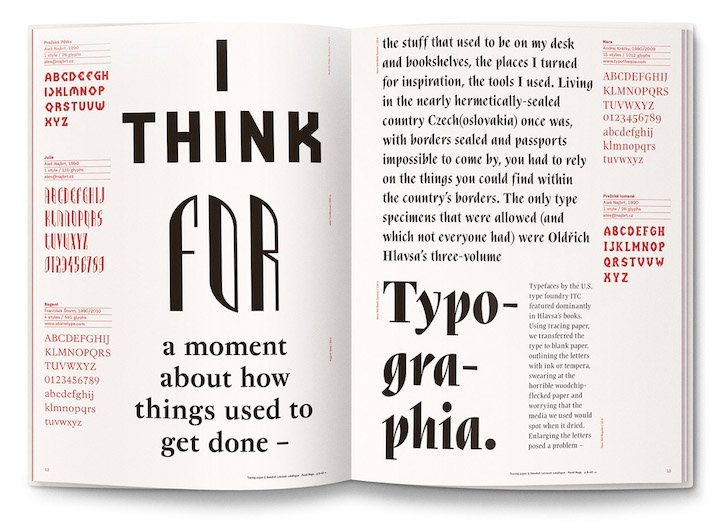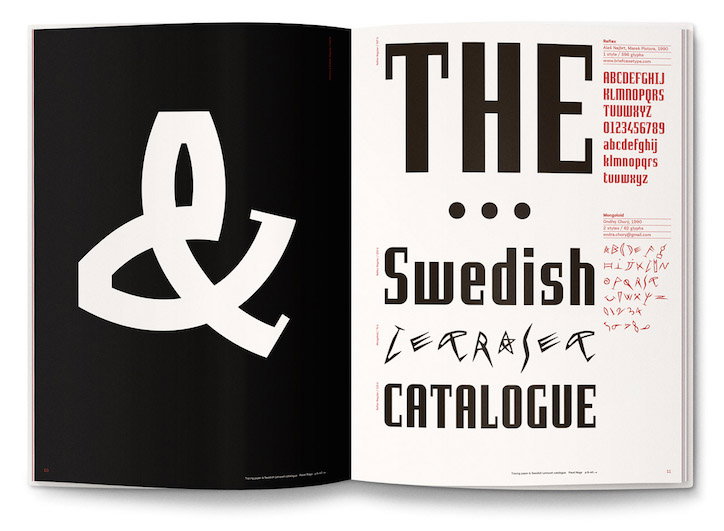
Briefcase celebrates 20 years of Czech typeface design with new book Typo 9010
Capturing significant moments from the Czech Republic’s oldest type design studio, new book Typo 9010, brainchild of Tomáš Brousil of independent type foundry Briefcase, celebrates digitised Czech typefaces from 1990 to 2010 by uniting them as an encyclopaedic collection.
Typo 9010’s designers Zuzana Lednická and Radek Sidun present Czech type design and its digital beginnings by combining 399 digitised typefaces and short texts from typographers narrating the atmosphere of Prague’s Academy of Arts, Architecture and Design at the tipping point of the digitised type revolution.
Illustrated pages and consistently varied layouts reflect and complement the vast and varied collection of typefaces created by Czech type designers in the last 20 years. Typo 9010’s editor Petra Dočekalová and his team have researched and sourced a huge range of typefaces, having even discovered some on obsolete formats such as floppy disks, to curate this fascinating catalogue of typefaces from the obscure to the immensely popular.